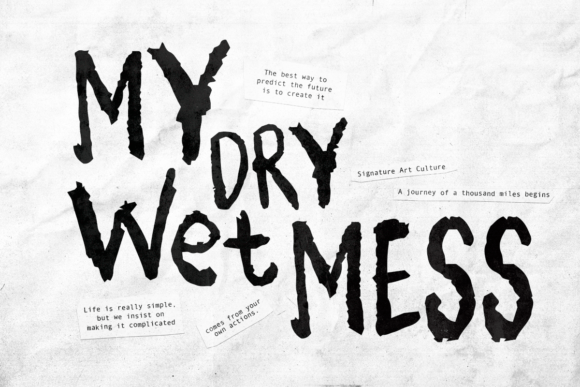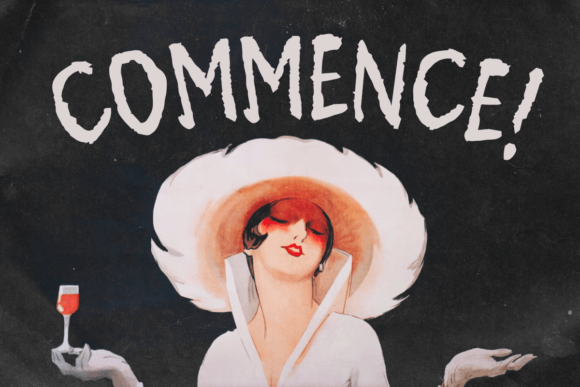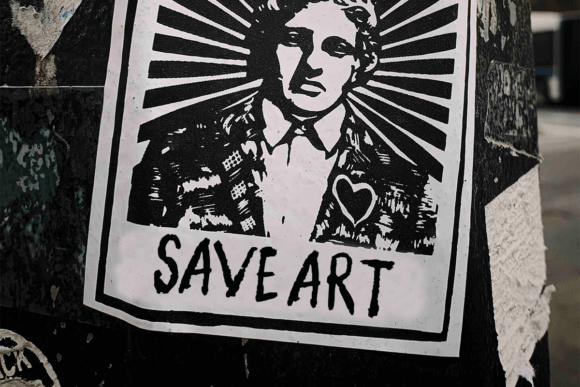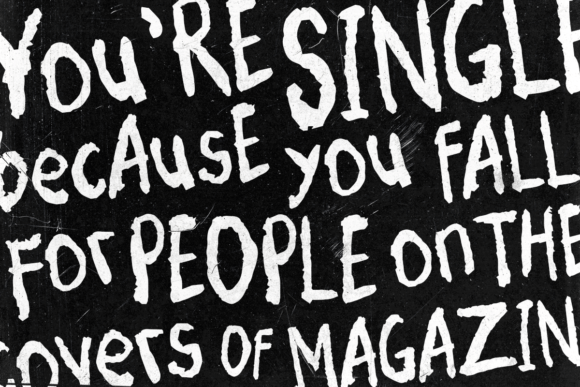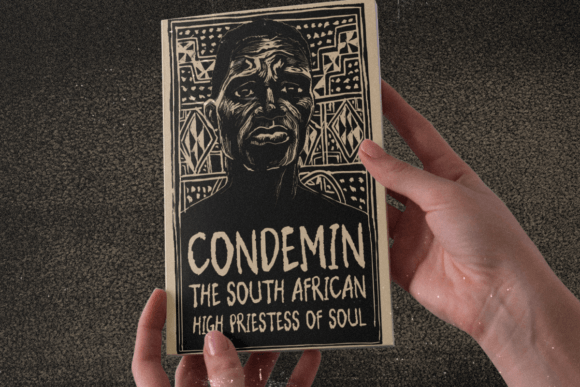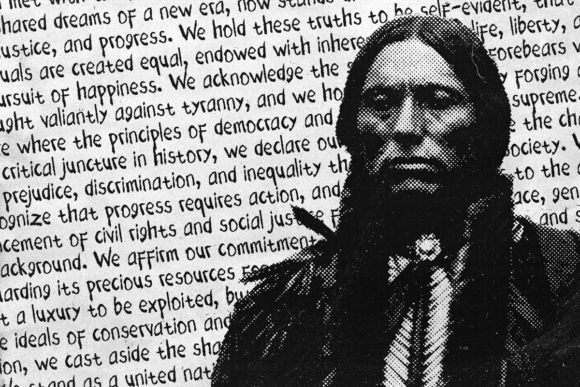
Discover the Charm of Awry Font: Where Imperfection Meets Art
Are you tired of traditional typography’s uniformity and precision? Look no further than the Awry Font, a delightful and quirky handwritten font that celebrates the beauty of imperfection. With its unique design, Awry breaks free from the confines of conventional typography, inviting designers and crafters to explore a world where disorder becomes an art form.
The Story Behind Awry Font
Awry Font is a carefully crafted typeface that walks the fine line between organized precision and captivating disorder. Its creator aimed to design a font that not only stands out from the crowd but also tells a story. Each letter, carefully handwritten with love and care, exudes a sense of playfulness and whimsy. The result is a font that feels both approachable and endearing.
What Makes Awry Font So Special?
Awry Font’s unique charm lies in its distinctive characteristics:
• Handwritten with love: Each letter is meticulously handwritten, giving the font a personal and human touch.
• Quirky and playful: Awry’s irregularities and imperfections make it a joy to use in creative projects.
• Elegant and refined: Despite its playful nature, Awry still maintains an air of sophistication, making it suitable for a wide range of applications.
Awry Font is an excellent addition to any designer’s or crafter’s toolkit. Its versatility makes it ideal for:
• Branding and logos: Add a touch of whimsy to your brand identity with Awry’s distinctive charm.
• Digital and print materials: Use Awry in social media graphics, blog posts, flyers, brochures, and more to create eye-catching visuals.
• Crafting and DIY projects: Awry Font is perfect for crafters who want to add a personal touch to their handmade creations, such as journals, cards, and scrapbooking.
Tips for Using Awry Font Effectively
To make the most of Awry Font, consider the following tips:
• Mix and match: Combine Awry with other fonts to create visually appealing contrast and hierarchy.
• Play with sizes and colors: Experiment with different sizes and colors to add emphasis and create visual interest.
• Emphasize imperfections: Don’t be afraid to let Awry’s imperfections shine – they’re what make the font unique!
Awry Font is a delightful and charming typeface that celebrates the beauty of imperfection. With its unique design, versatility, and whimsical charm, it’s an excellent addition to any designer’s or crafter’s toolkit. Whether you’re looking to add a touch of personality to your branding, create eye-catching visuals, or add a personal touch to your handmade creations, Awry Font is sure to delight.
So why settle for traditional typography when you can add a dash of whimsy to your designs? Give Awry Font a try today and discover the art of imperfection!